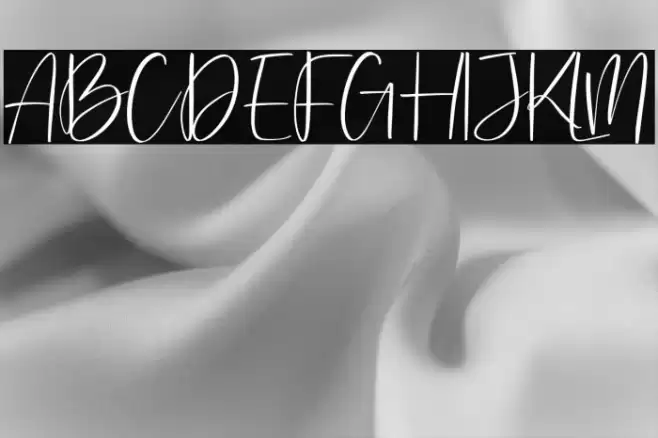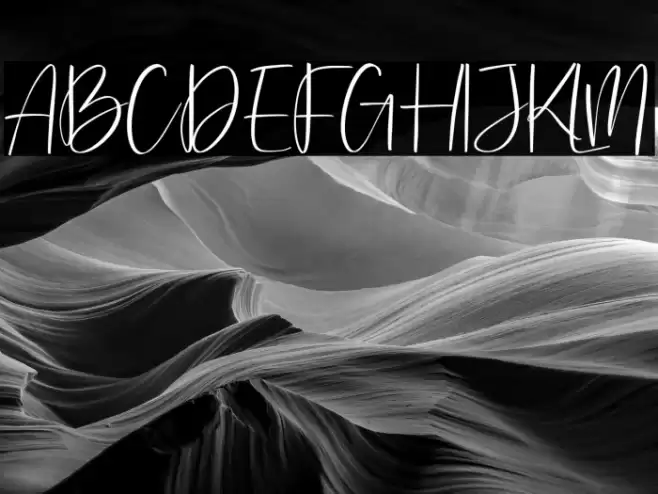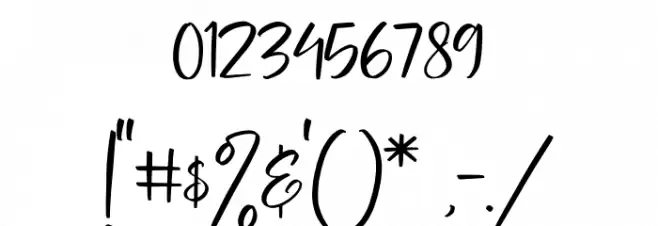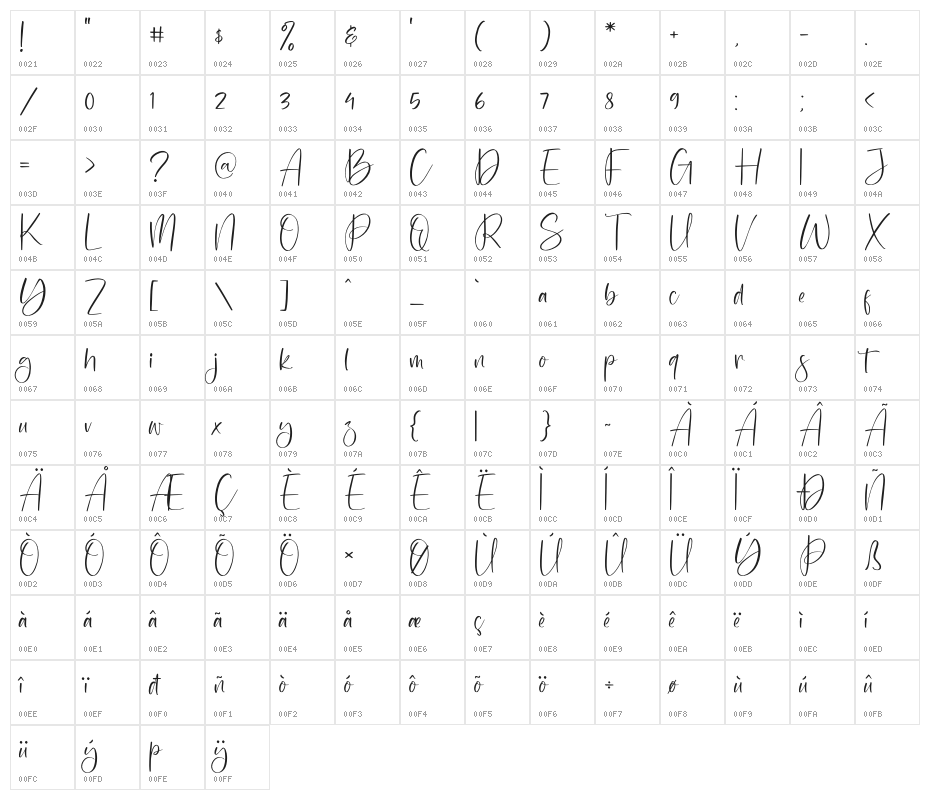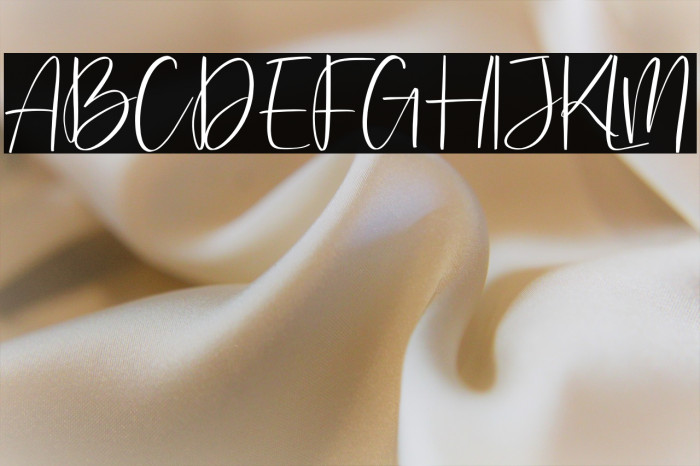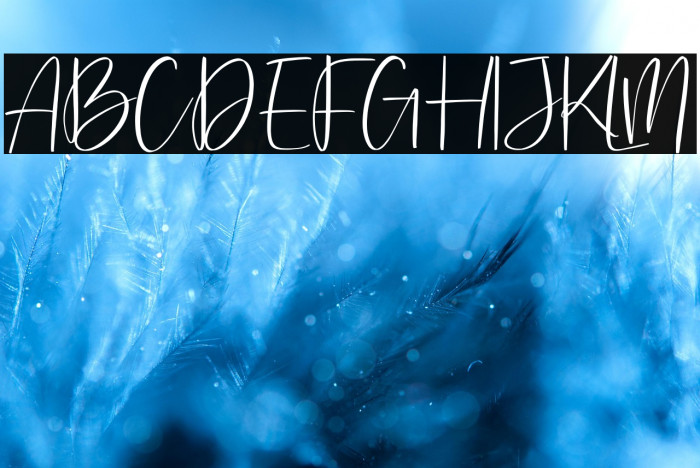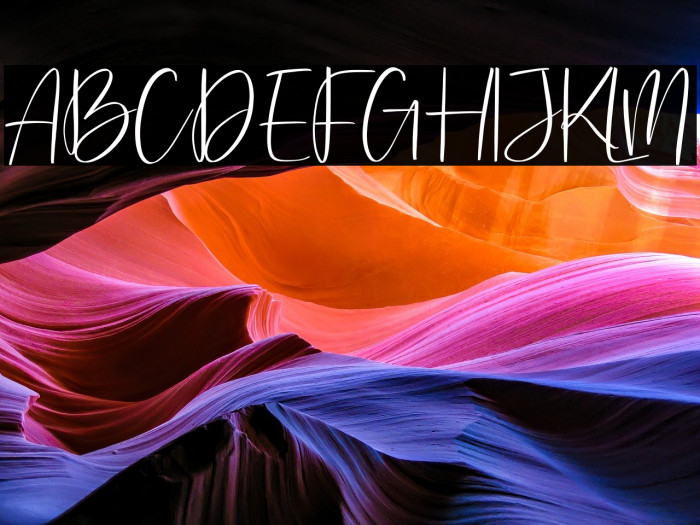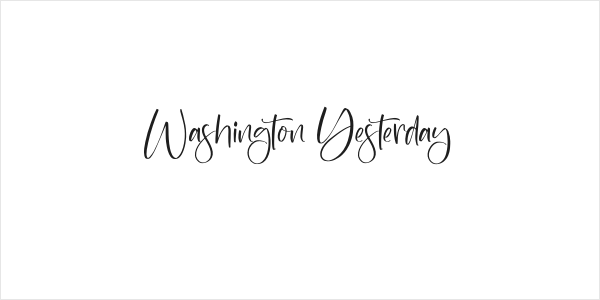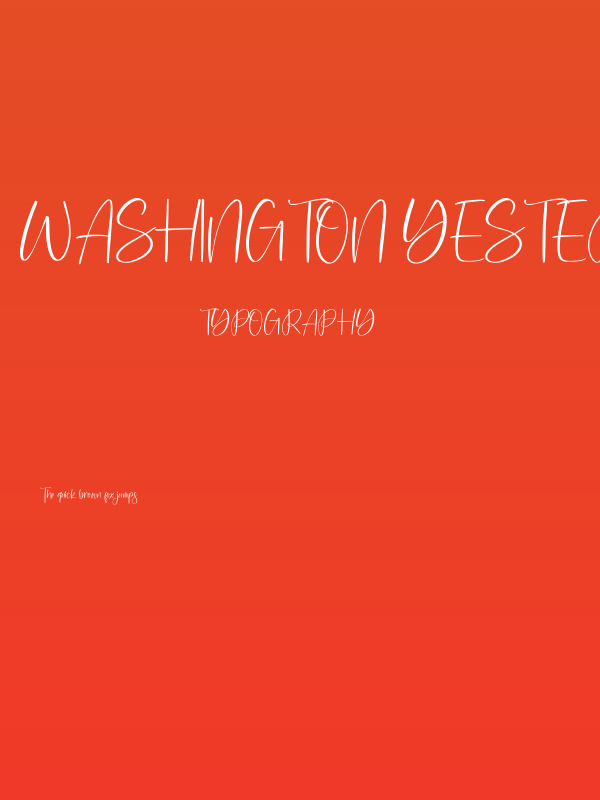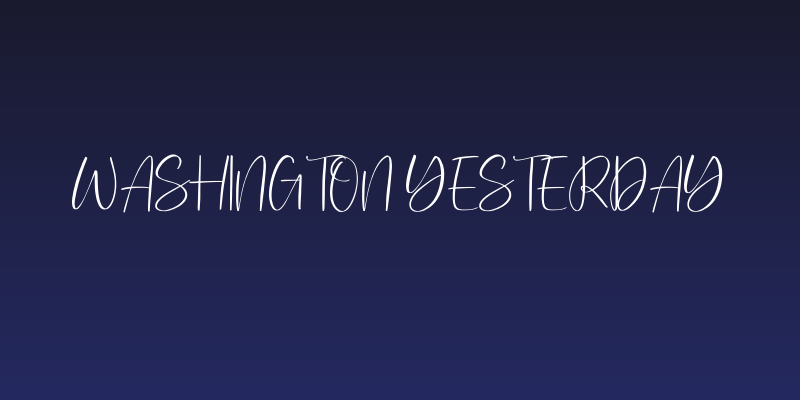
Washington Yesterday Font
Washington Yesterday Description
This font features a dynamic and expressive handwritten style, characterized by its fluid and flowing letterforms. The uppercase letters are tall and slightly narrow, with a playful yet elegant flair, while the lowercase letters maintain a consistent rhythm with loops and curves that add a touch of whimsy. The numerals are distinct and maintain the same handwritten quality, ensuring readability. Special characters are creatively designed, fitting seamlessly with the overall aesthetic. This font exudes a sense of personality and charm, making it suitable for projects that require a personal touch.
A dynamic and expressive handwritten font with fluid, flowing letterforms from Uncategorized fonts.
- Font: Washington Yesterday
- Proposed Projects: Ideal for invitations, greeting cards, branding, and social media graphics.
- Use Case: Logos, Headlines, Invitations